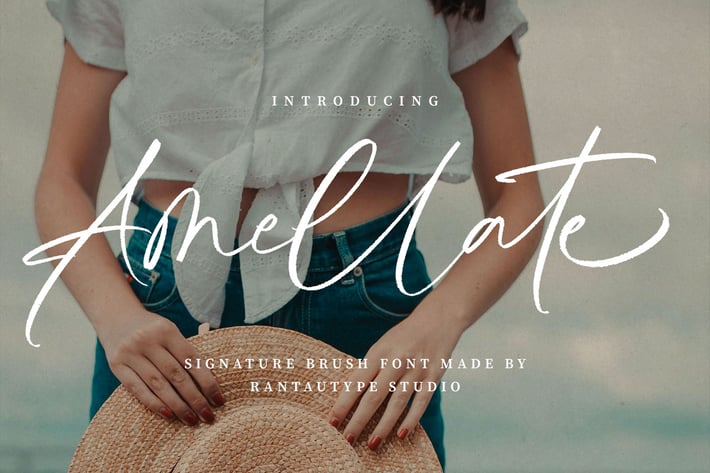
Amellate Signature Brush Font
Bring your professional design project with amellate. Amellate is signature brush font with stylish and trend character, Amellate is a professional choice for any creative endeavor, creating, modern, chic, lifestyle design such as logotype, title, cover, branding, invitations, wedding designs, display and magazine, social media posts, advertisements, printed quotes, product packaging, corporate brand, product designs, labels, photography, watermarks, special events and any other project with handwritten touch.
+ Ligature and alternate